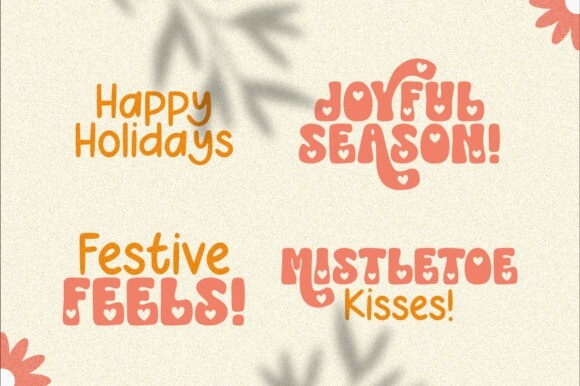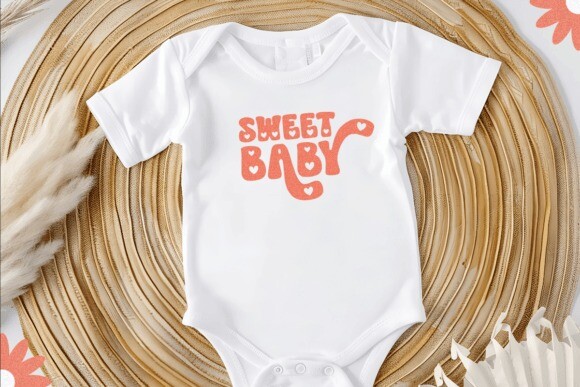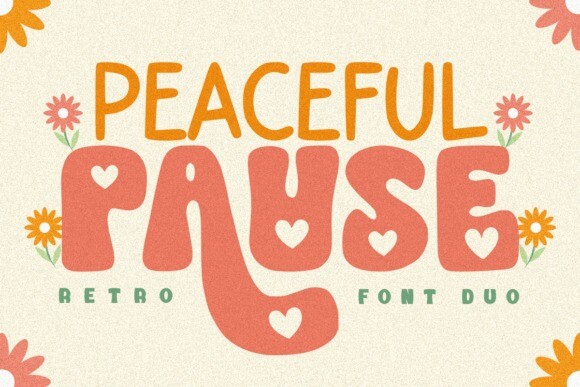
Peaceful Pause Duo Font
Peaceful Pause is a sweet and groovy font duo perfect for adding a touch of retro charm to your designs. This handwritten font pair features a playful, bubbly script and a bold, chunky display font, making it perfect for creating eye-catching titles, logos, and more. Whether you’re designing posters, invitations, or social media graphics, Peaceful Pause will add a touch of nostalgia and fun.